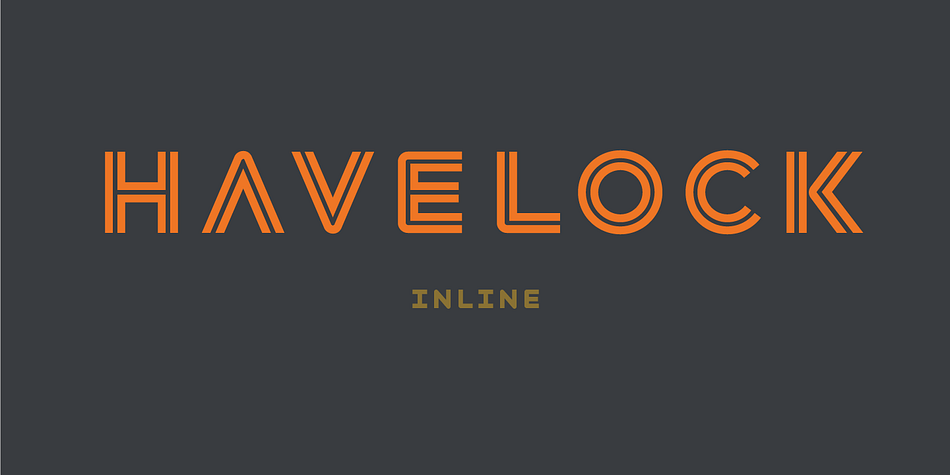
HAVELOCK
Havelock is a stencil and display sans font family. This typeface has four styles and was published by XO.
Four interchangeable all-caps typefaces, made specifically for designers to layer and play with. It combines hard and soft, geometry and pattern. Layer and mix styles within a single word, retaining coherent visual tone. Havelock Solid operates as a background layer, Multiline sits nicely atop it, Inline frames Multiline’s center strokes, and Stencil lets details peek through. If you’re working with translucent color, the blending can be gorgeous.